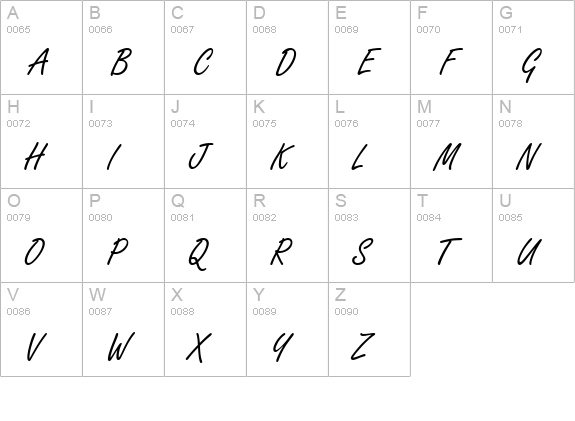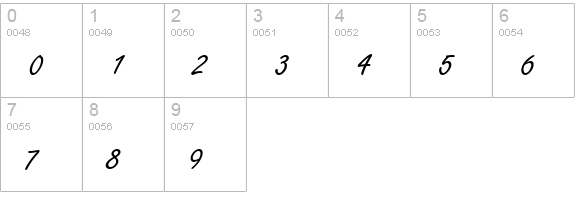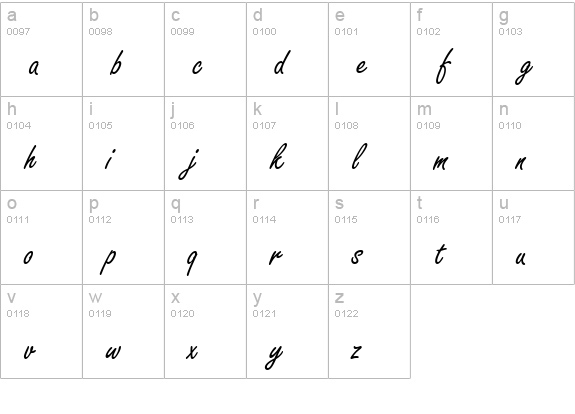
FreestyleScrD Font Details
FreestyleScrD font is a captivating and dynamic typeface that exudes creativity and personality. Its unique and modern design makes it perfect for a wide range of projects, from branding to social media graphics. With its stylish handwritten appearance, FreestyleScrD font adds a touch of flair and individuality to any design. The best part about FreestyleScrD font is that it is completely free to download at FontsMarket.com. This means you can easily access this versatile font and use it in your projects without any cost. Whether you're a designer looking to add a fresh element to your work or a hobbyist wanting to experiment with different fonts, FreestyleScrD font is a fantastic choice that won't break the bank. Don't miss out on the opportunity to enhance your designs with the free and stylish FreestyleScrD font. Download it today from FontsMarket.com and let your creativity flow!